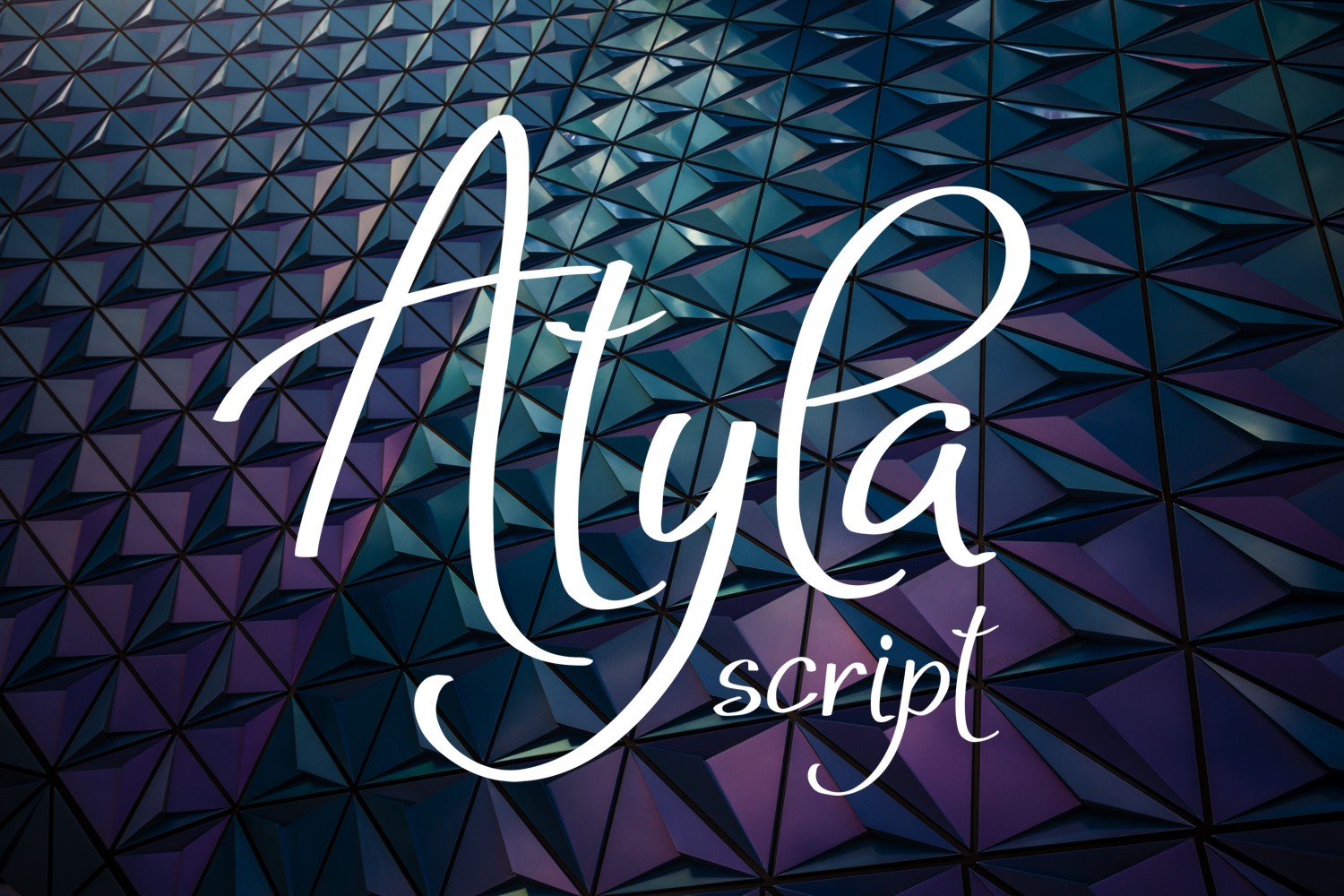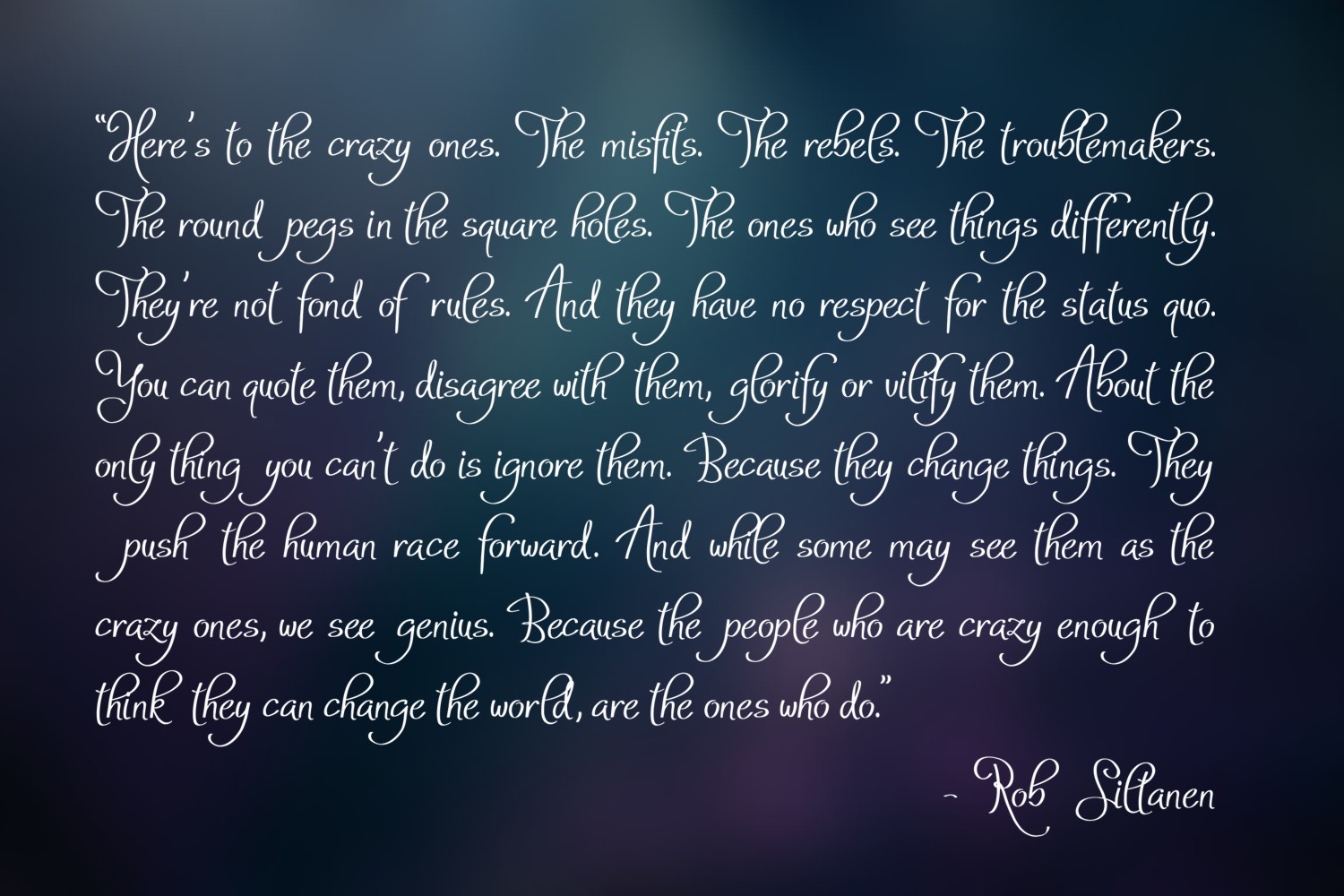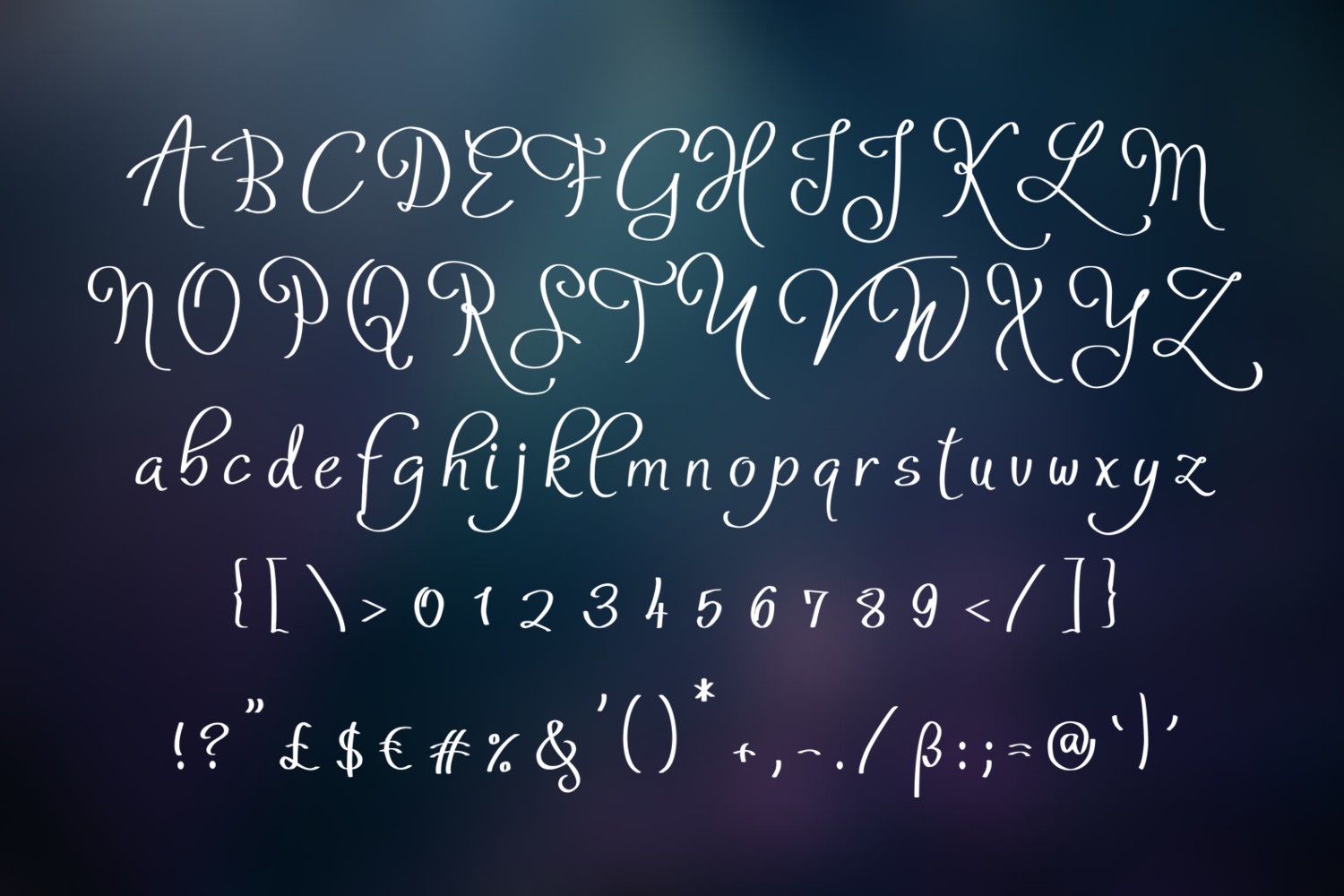
Atyla Font
About Atyla Font
Atyla is a great script font with a casual vibe, perfect for a large range of design projects. This font is fresh, modern, and unique.